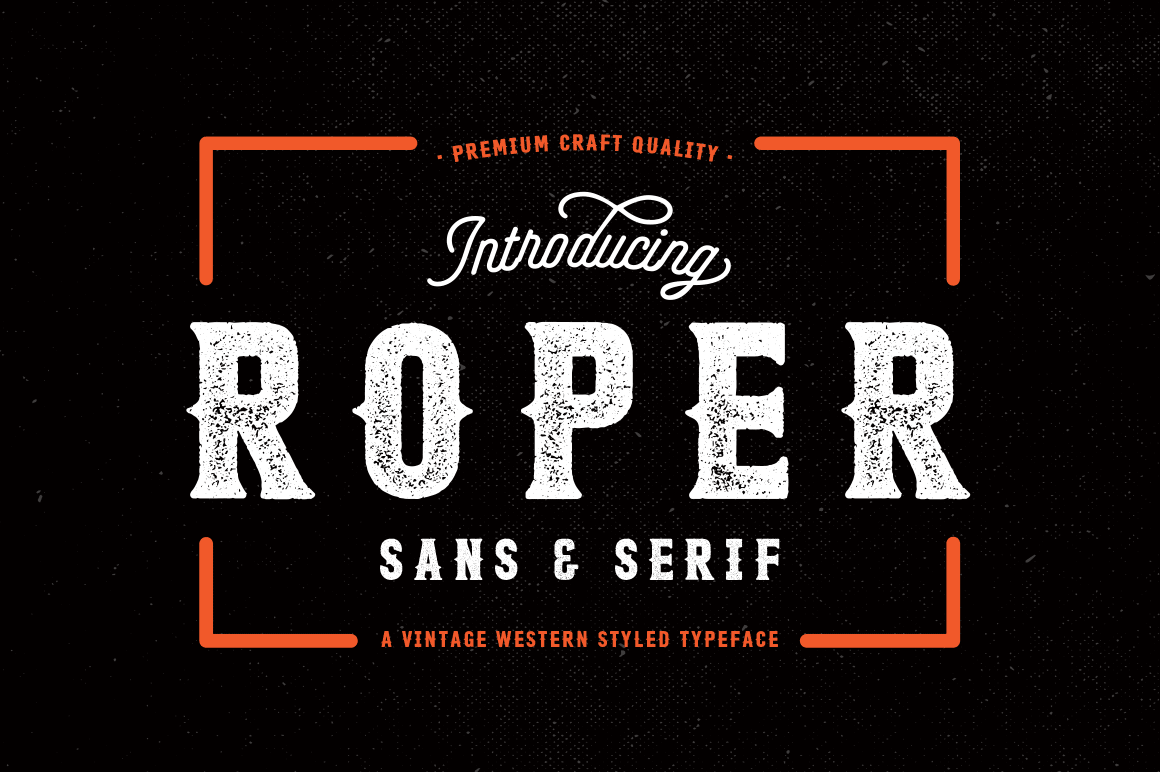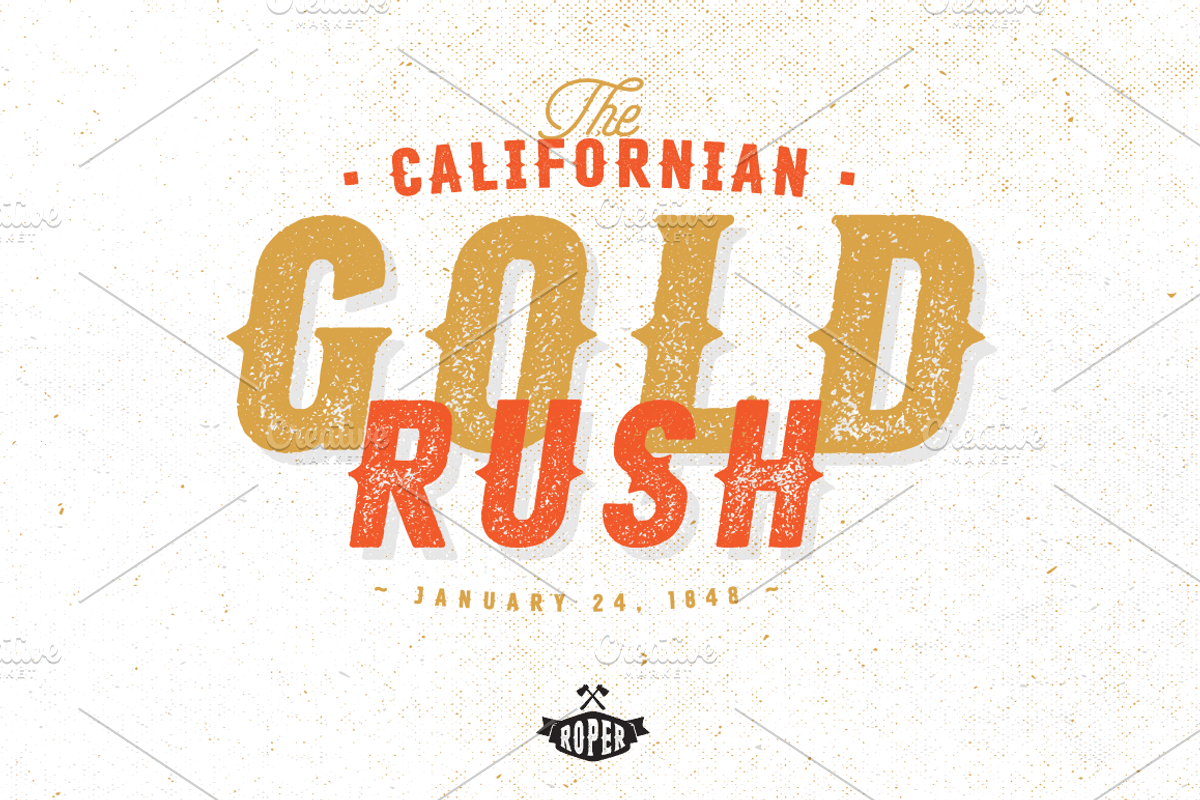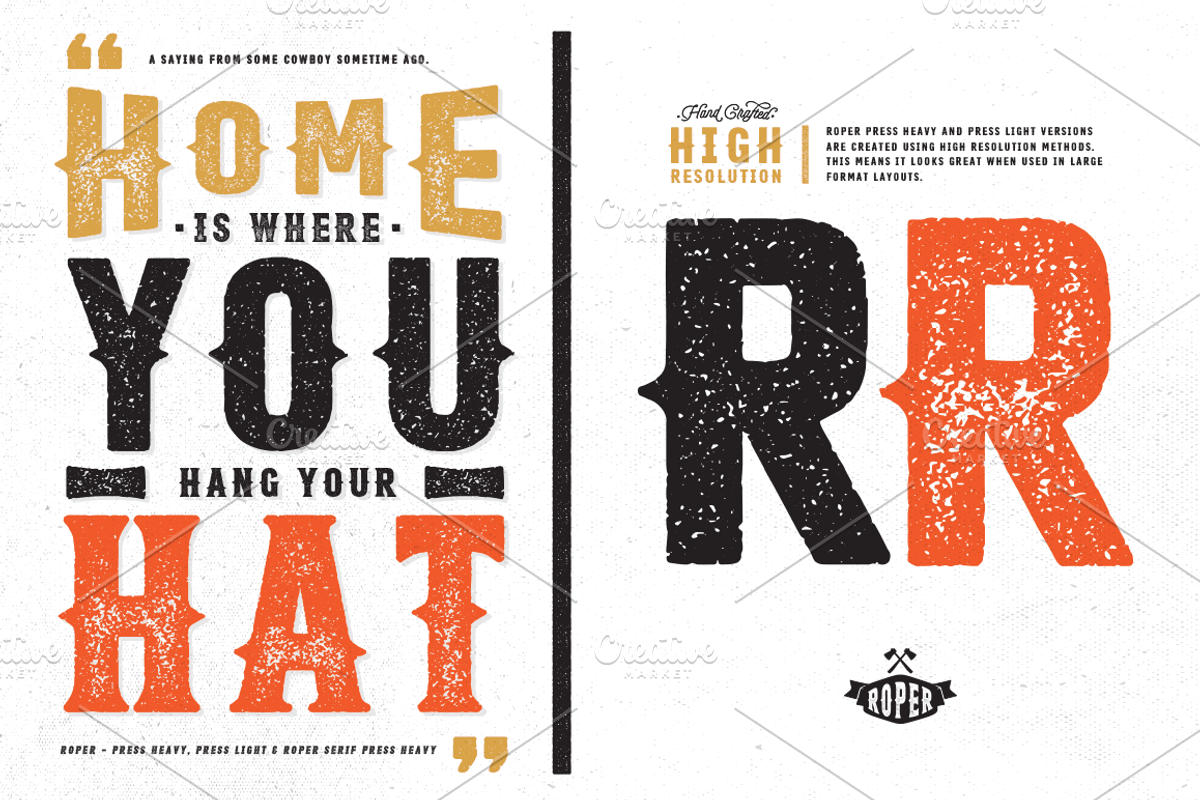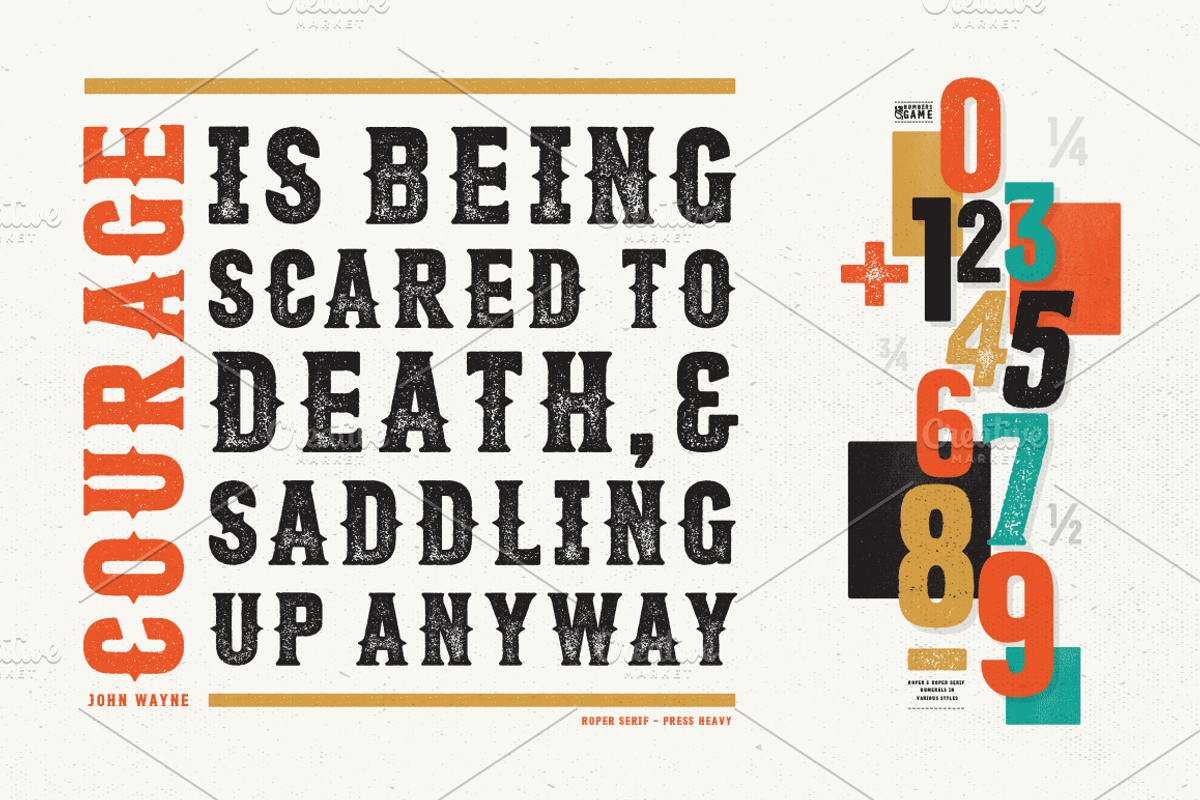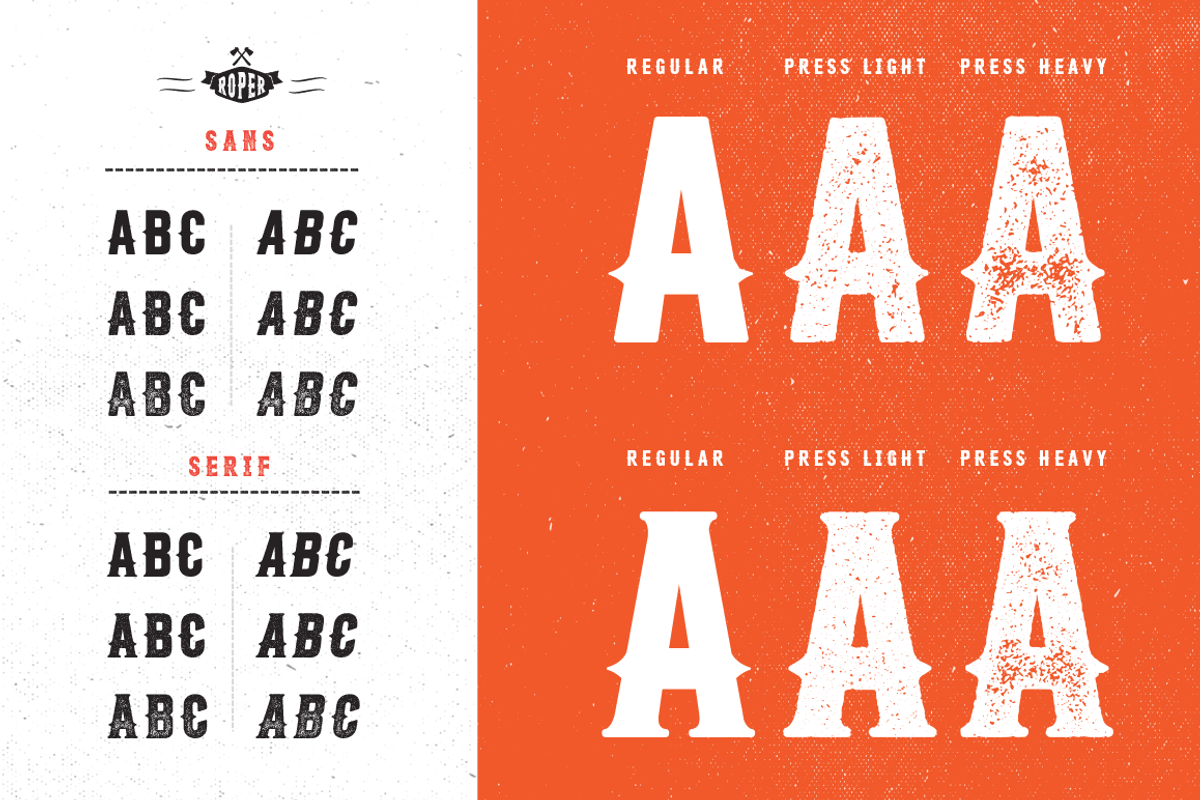
Roper is a western styled font that comes in family of 12 different styles in sans and a serif versions, each version has a regular, press light and a press heavy option. the press versions are a letterpress/stamped style.
although Roper is an all caps family of fonts and was designed as a display font, it can be used in many ways. Roper gives the user many options to choose from withe regards to styling, this helps bring whatever it is you are creating with roper font come to life.